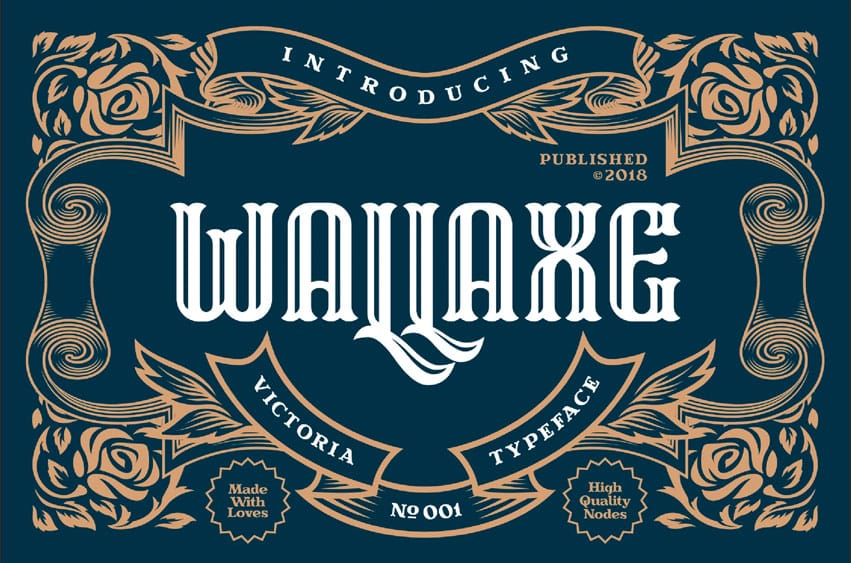
Wall Axe Font is a typeface inspired by vintage lettering and art. With its Victorian touch, this font remains bold and solid.
It is well-suited for headlines, logotypes, apparel, invitations, branding, packaging, advertising, and more.